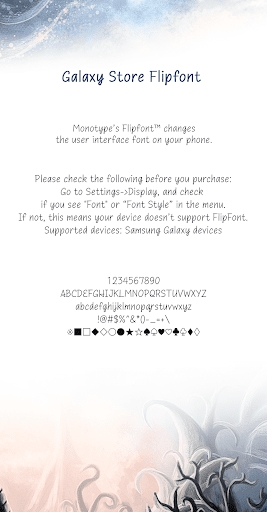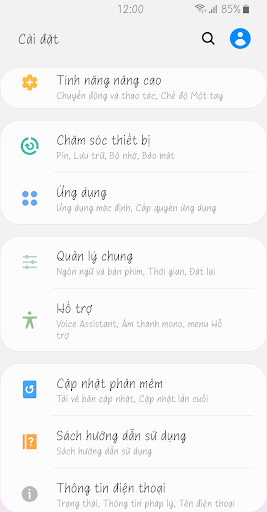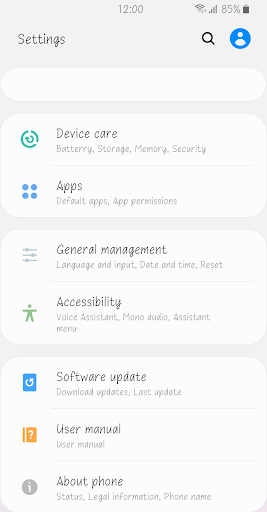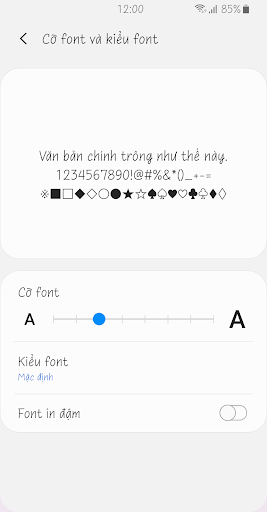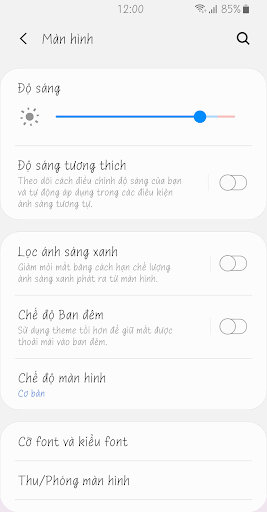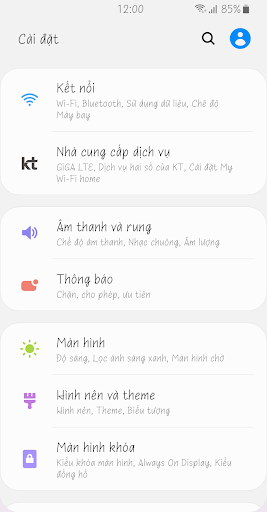
ZF Wizard
It is a handwritten style font that is written comfortably.
With the motif of a lively and pounding figure, it provides cute and refreshing pleasure.
Strangely, I feel possessed by an unbreakable spell.
Just looking at it makes my heart pound, my heart beats~ What should I do?
You are probably the only one who can break this magic.